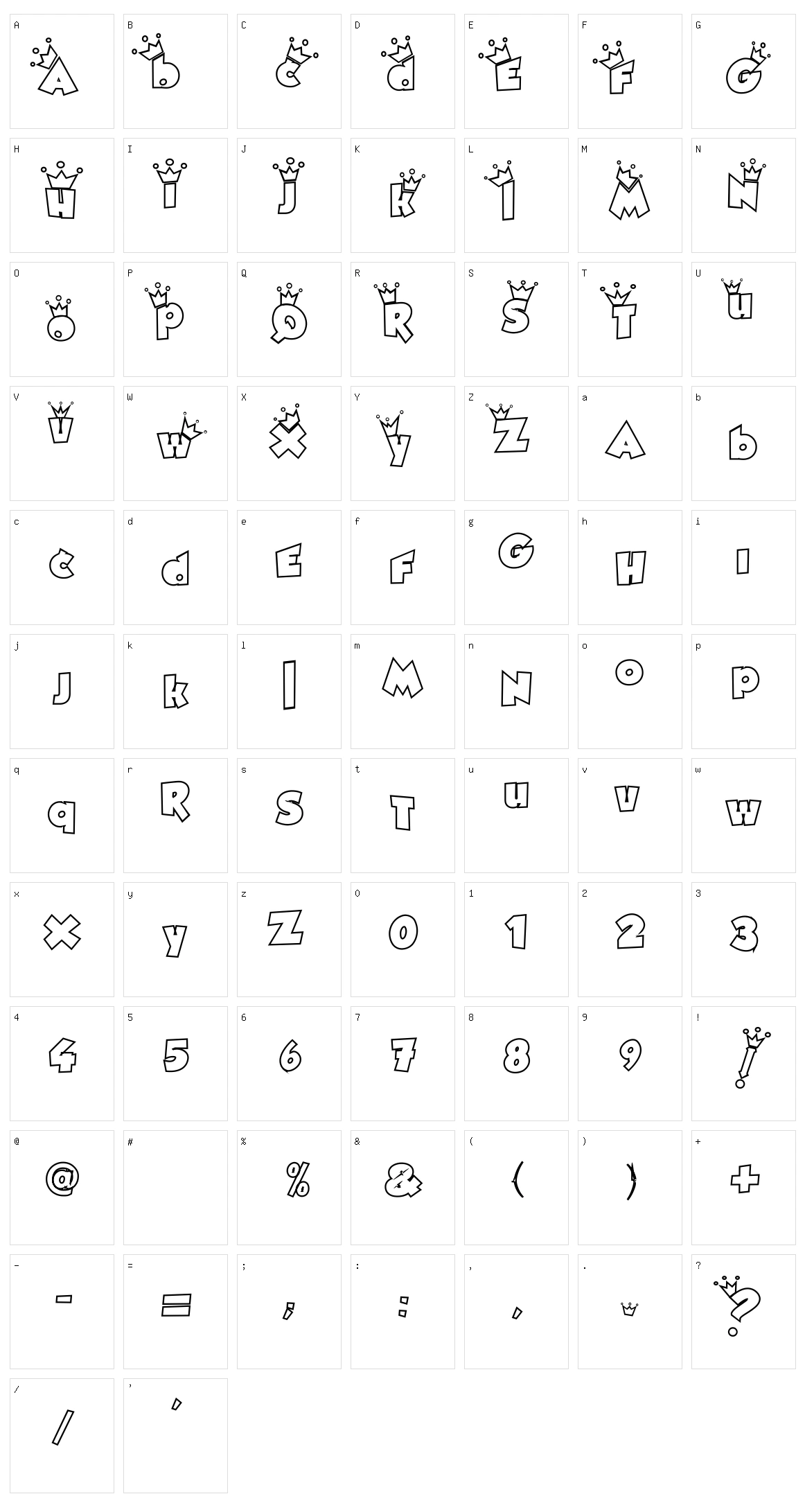
The free font Royaltea's color is Violette is carefully designed by Jundel Navarro, showcasing a thoughtful balance of creativity and usability and falls under the Cartoon font style. When you download the ZIP file, it contains only 12.47 KB of font files, making it lightweight and quick to download. Please review the license details below to understand permitted usage and distribution rights. If license information is not available, we recommend using this font for personal projects only or contacting the author directly for commercial usage permissions.